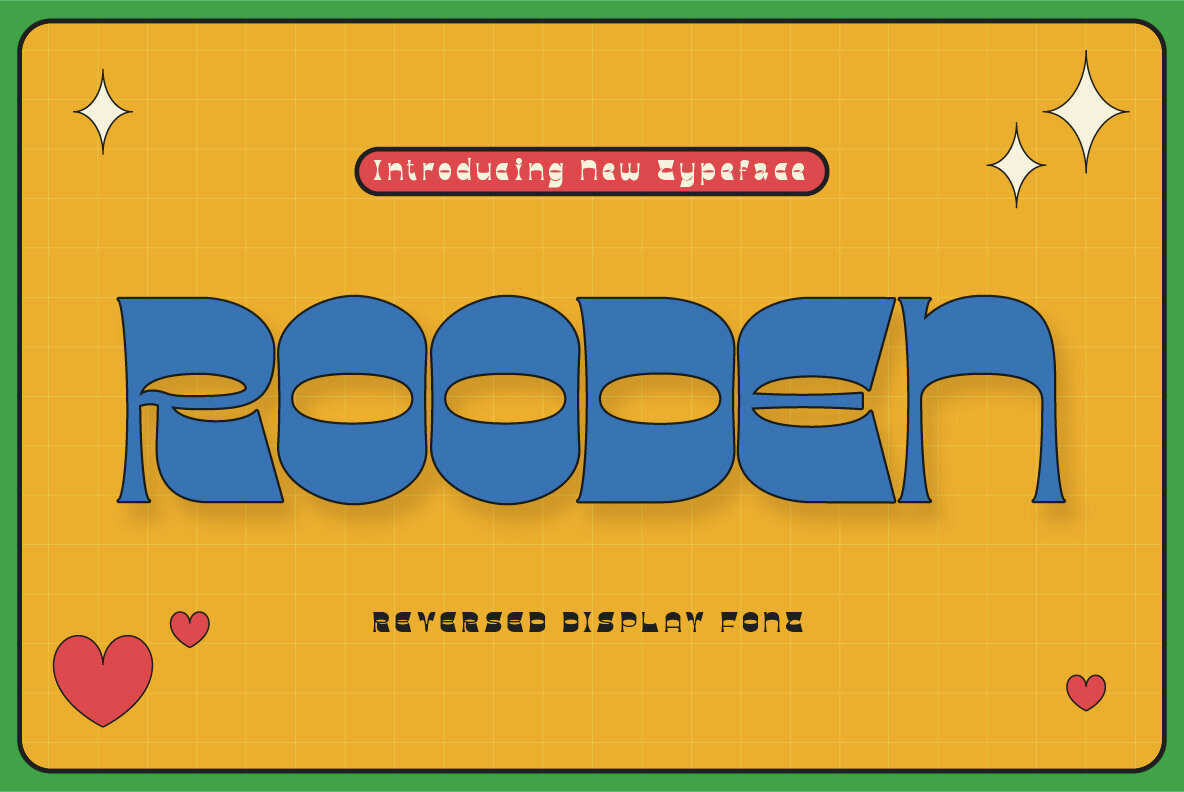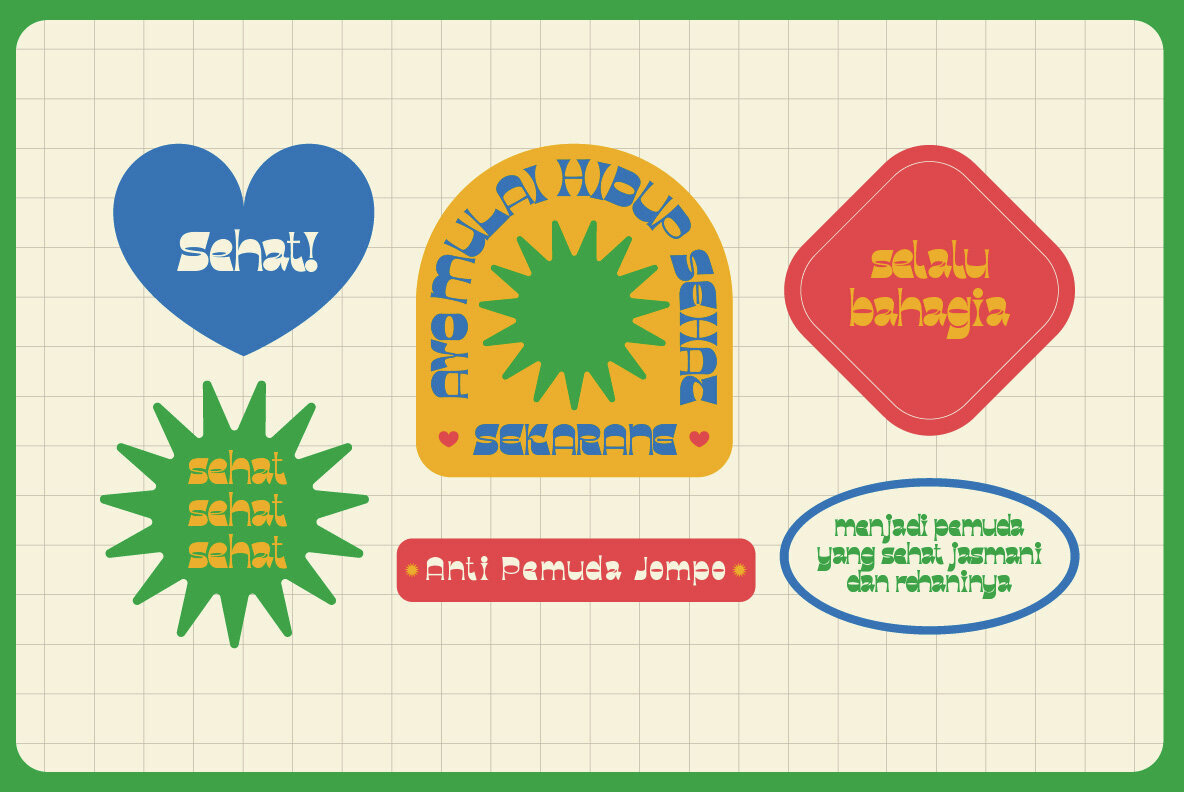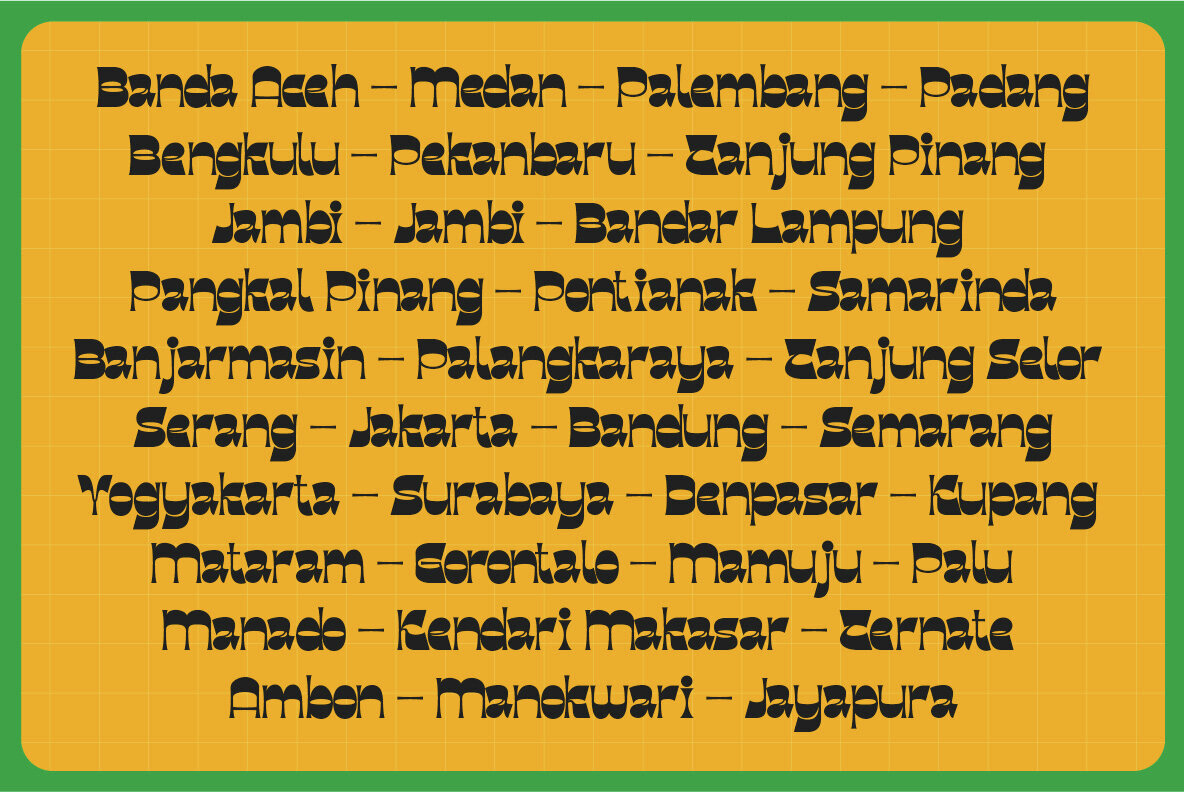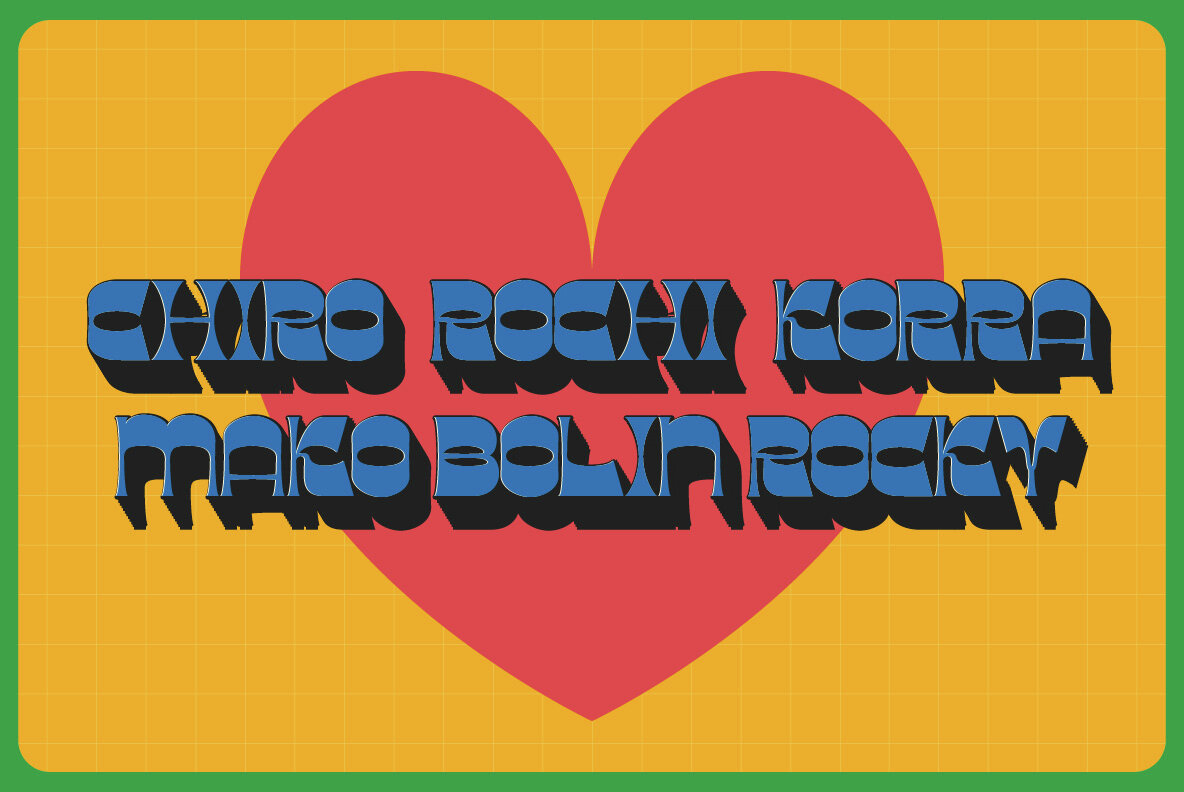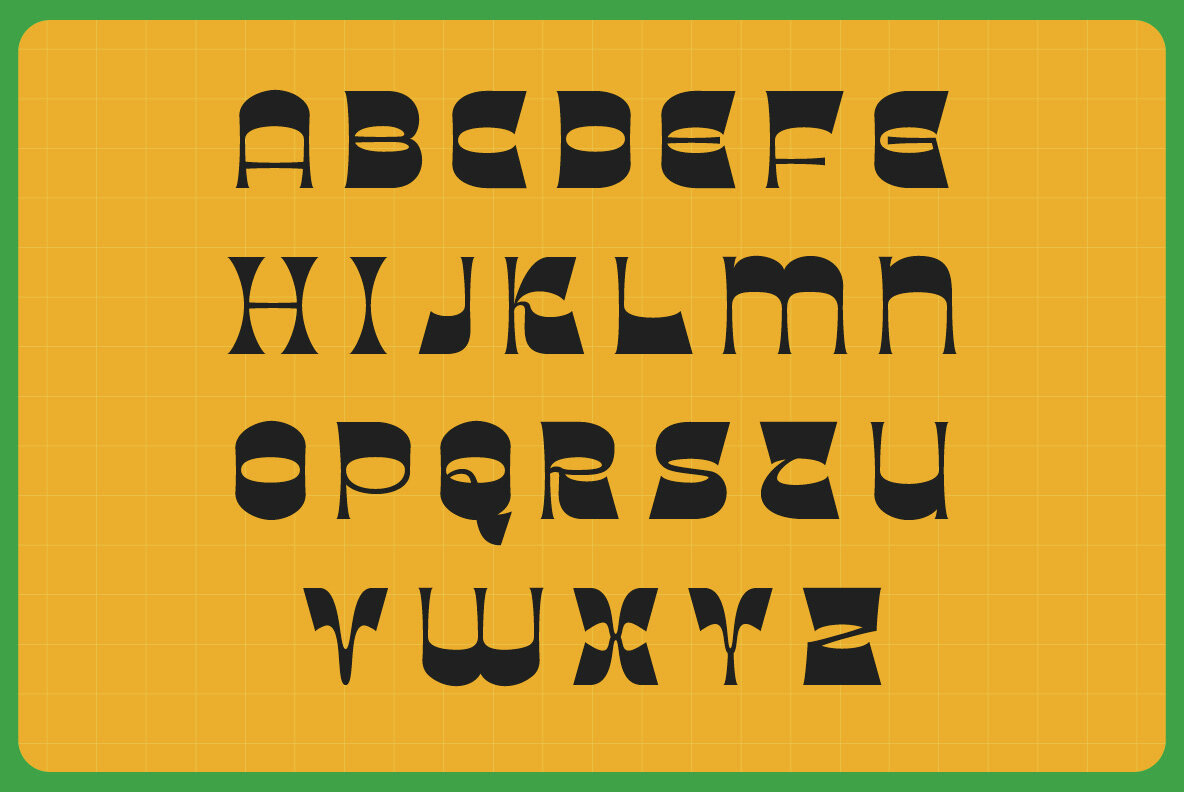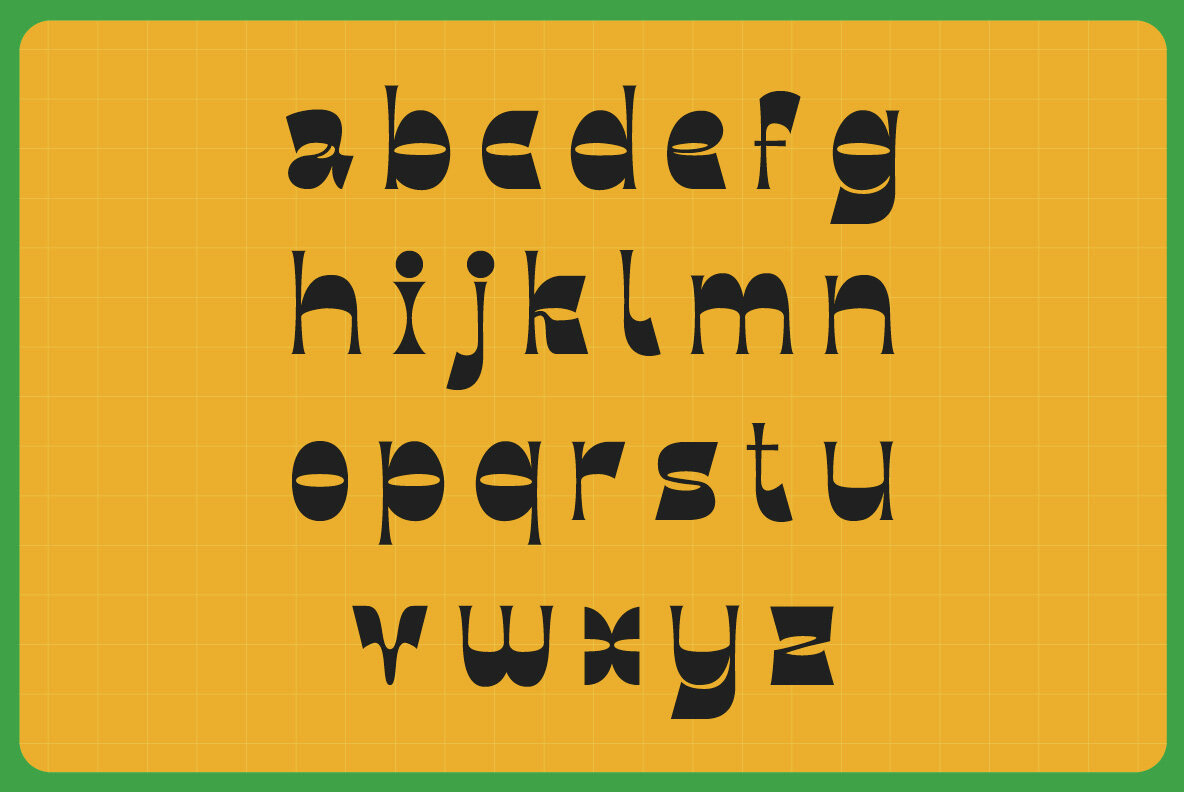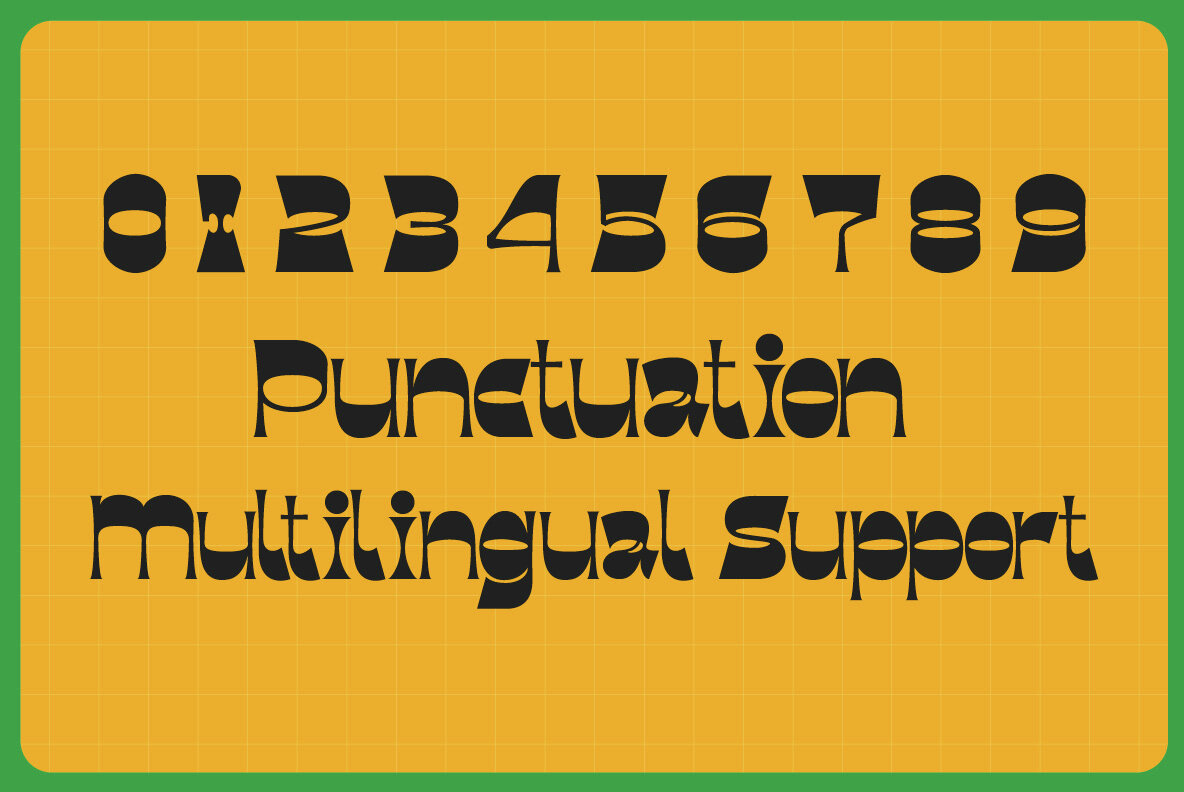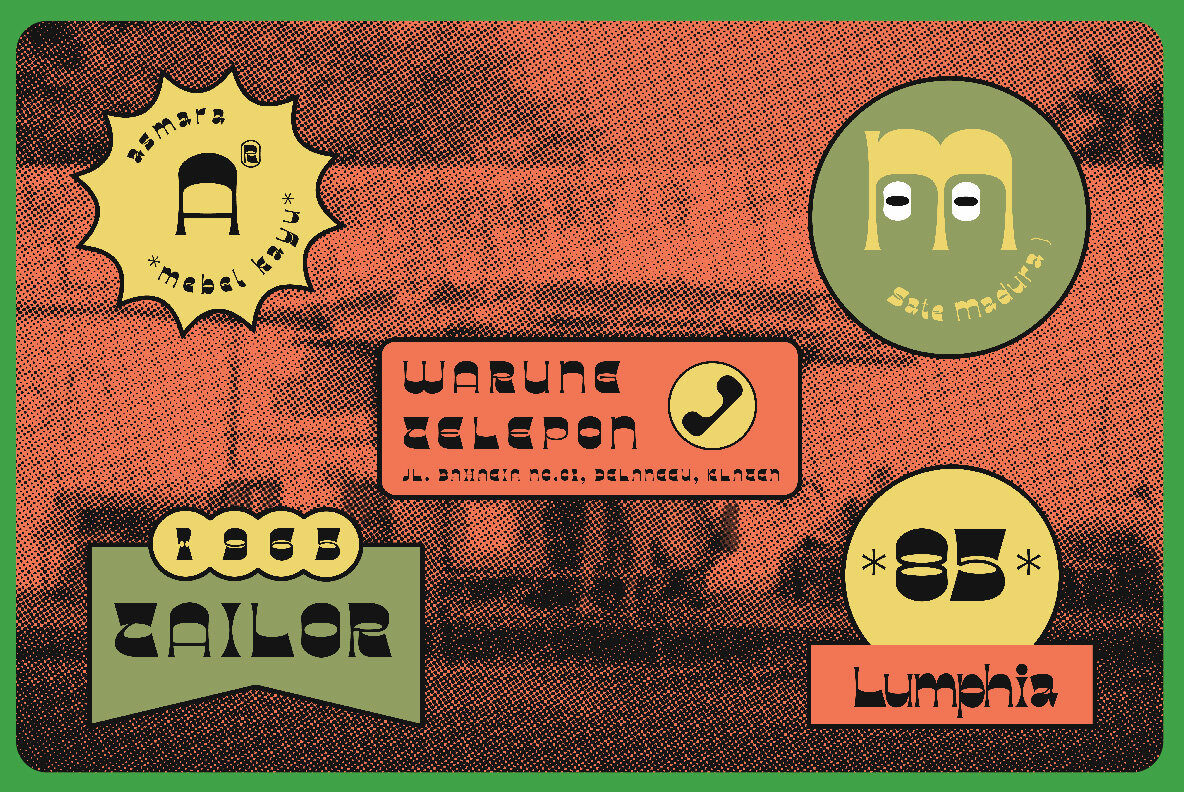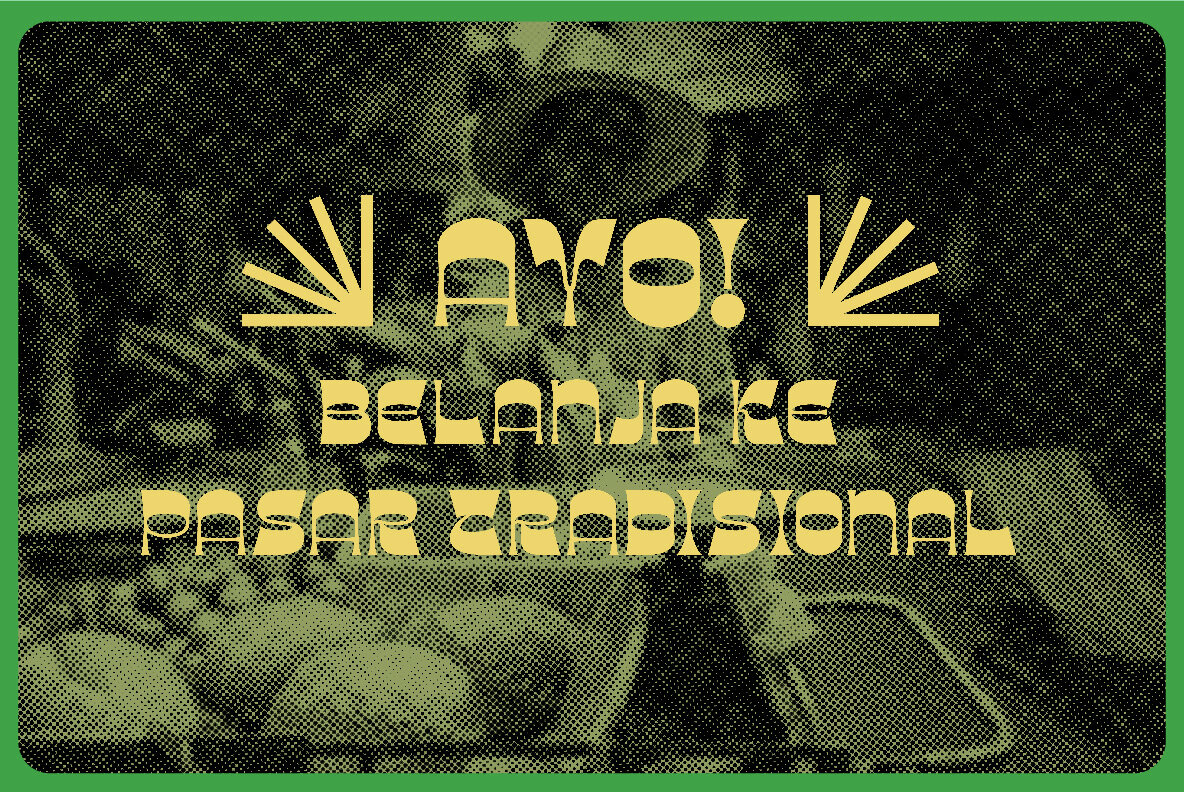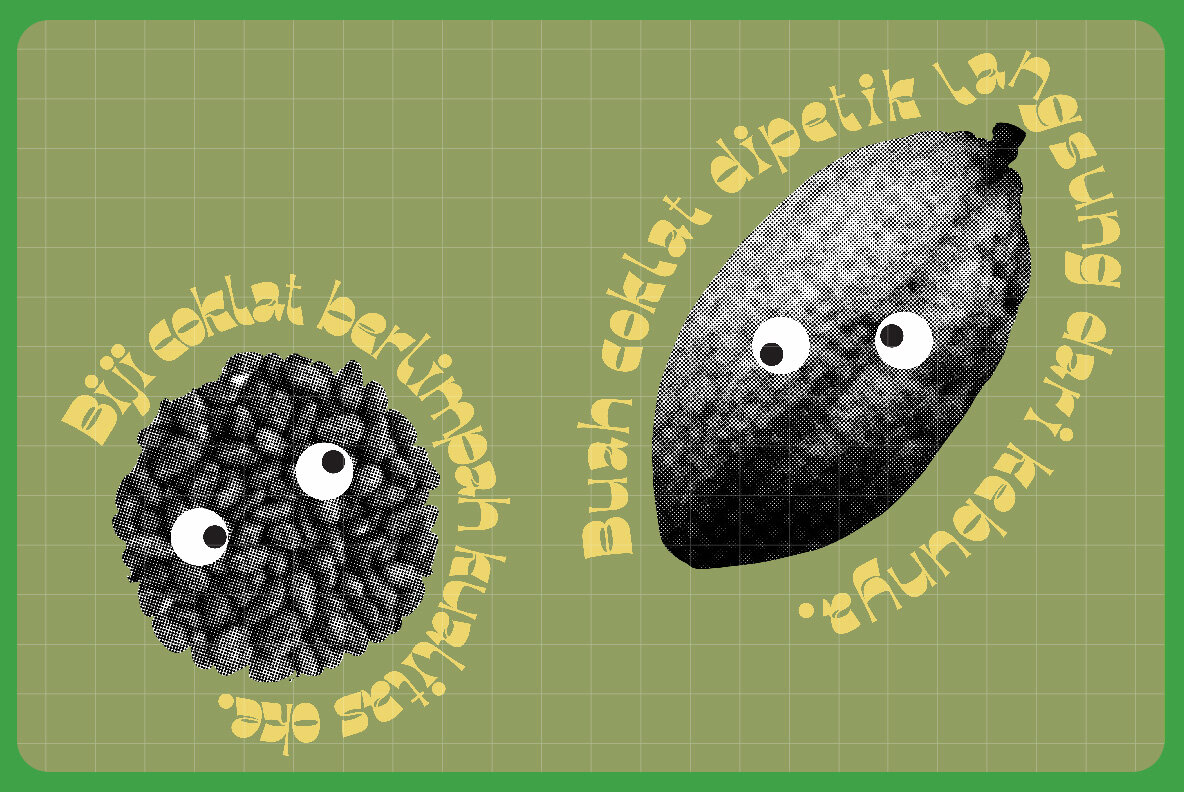
Rooden Font
Rooden
Rooden delivers unmistakable character with unconventional shapes and bold contrast. This modern display font commands attention in both print and digital settings, offering a contemporary perspective on classic letterforms. Its distinct style makes each composition memorable and instantly recognizable. Bring your creative work to life with a font designed to stand apart in any environment.Rooden Bold Reversed Display Font